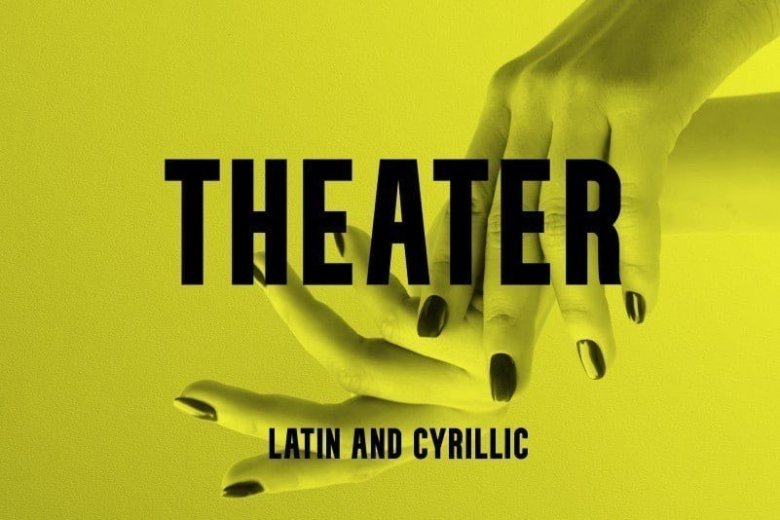
Theater Bold Sans Serif Font
Theater Font is a powerful sans-serif font, designed with a sturdy and firm shape and has a balanced line, Theater Font is formed with a modern touch. perfect when used for displaying, website, branding, logos, magazines, posters, films, different shapes give you full reach to explore a number of applications, while the fonts described giving a real modern feel to any project.